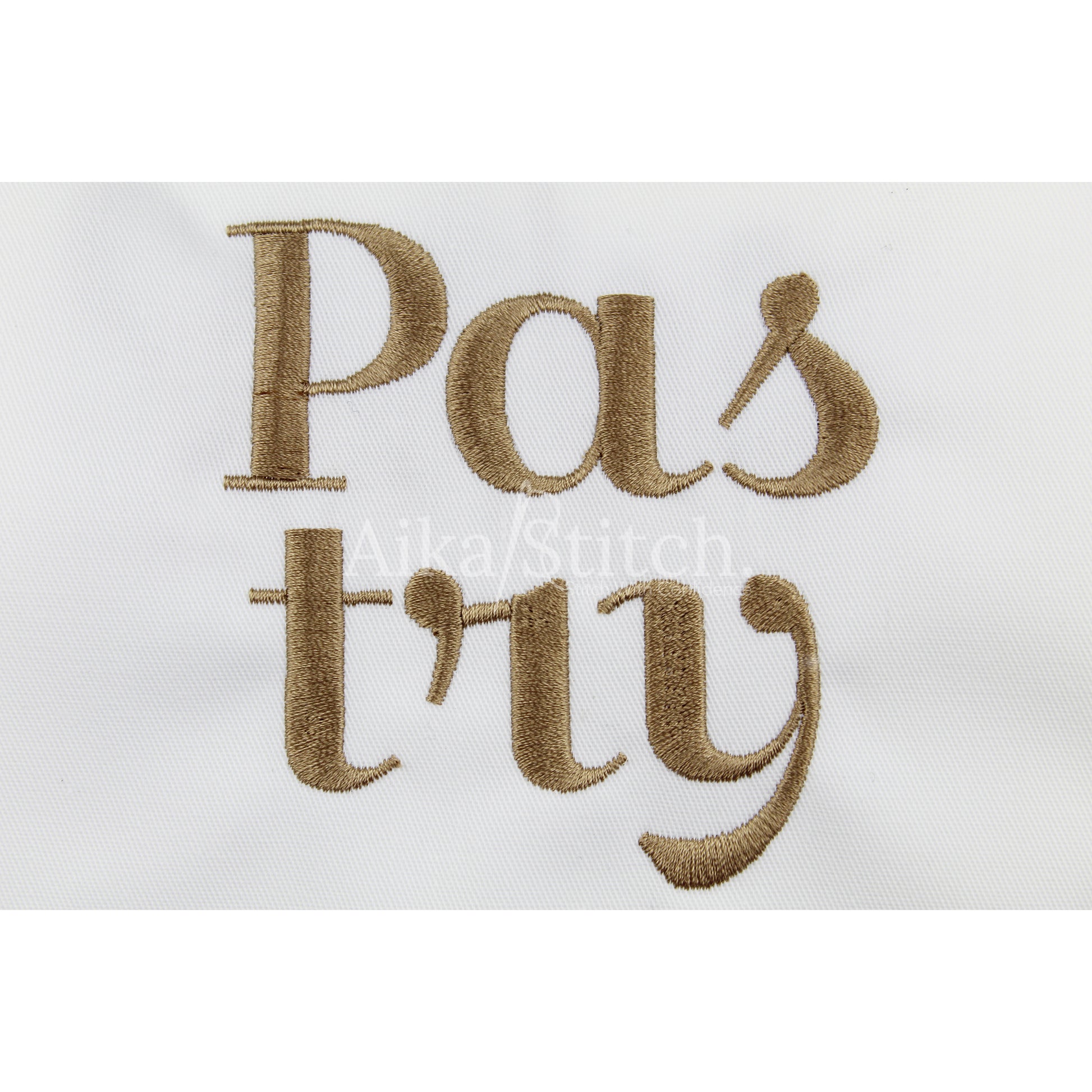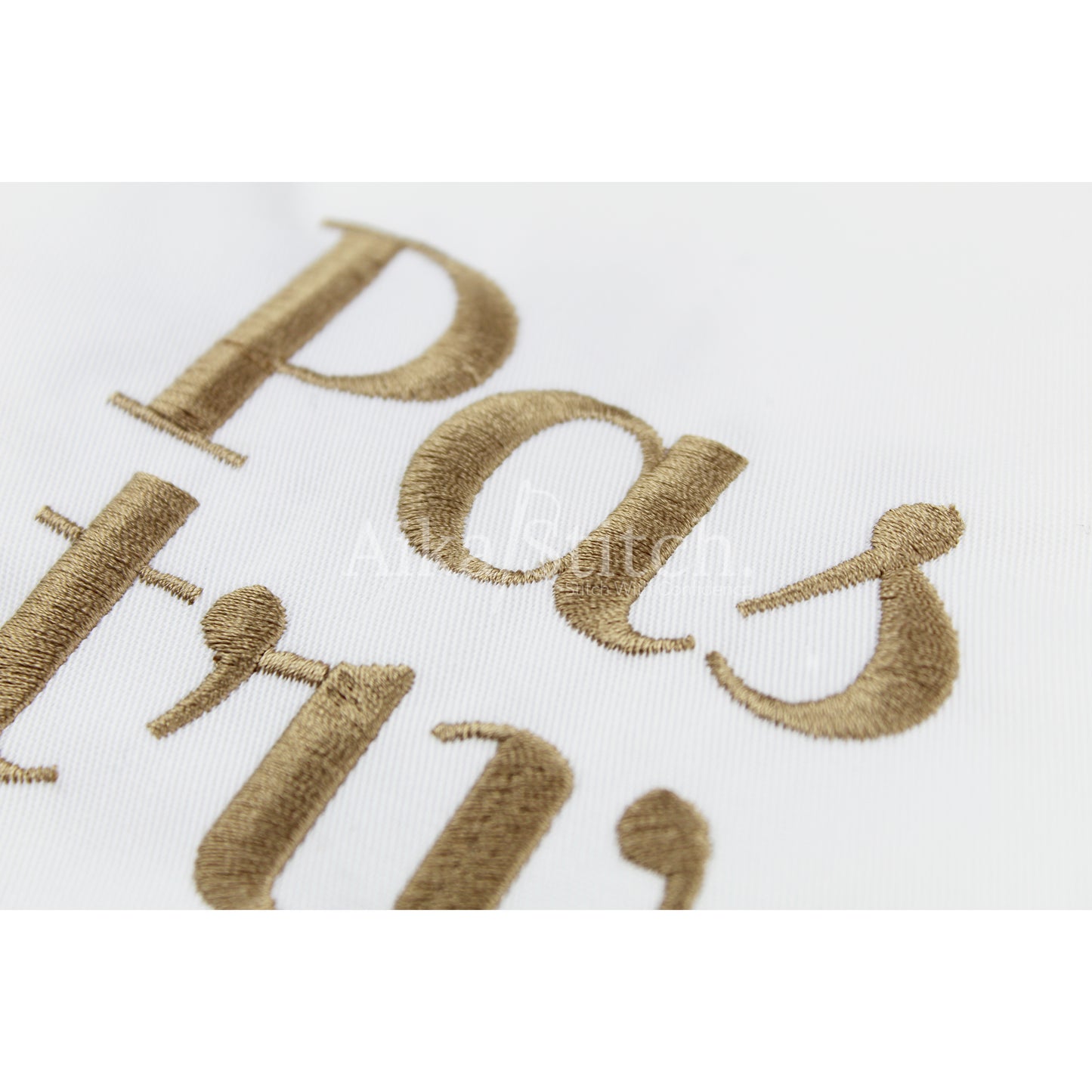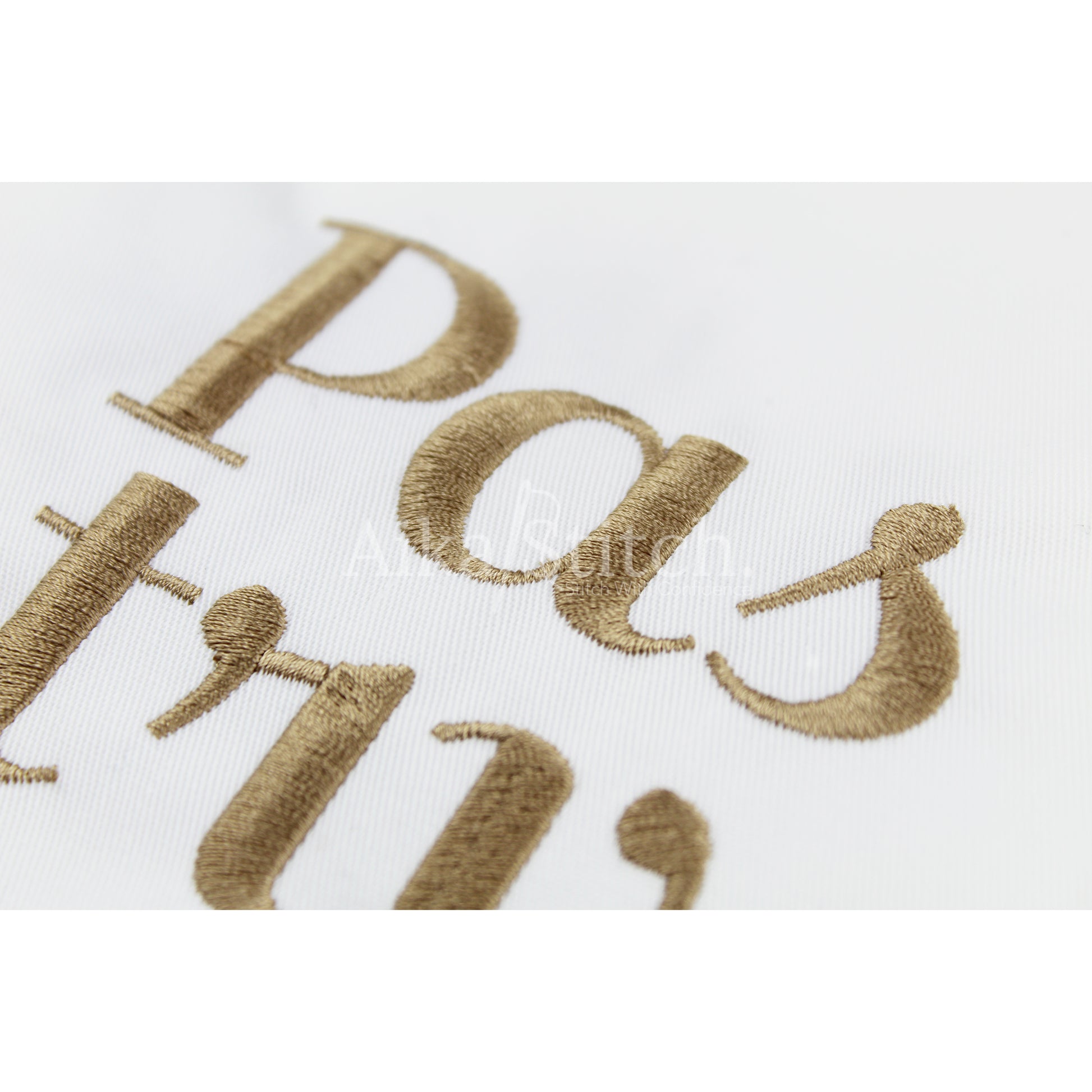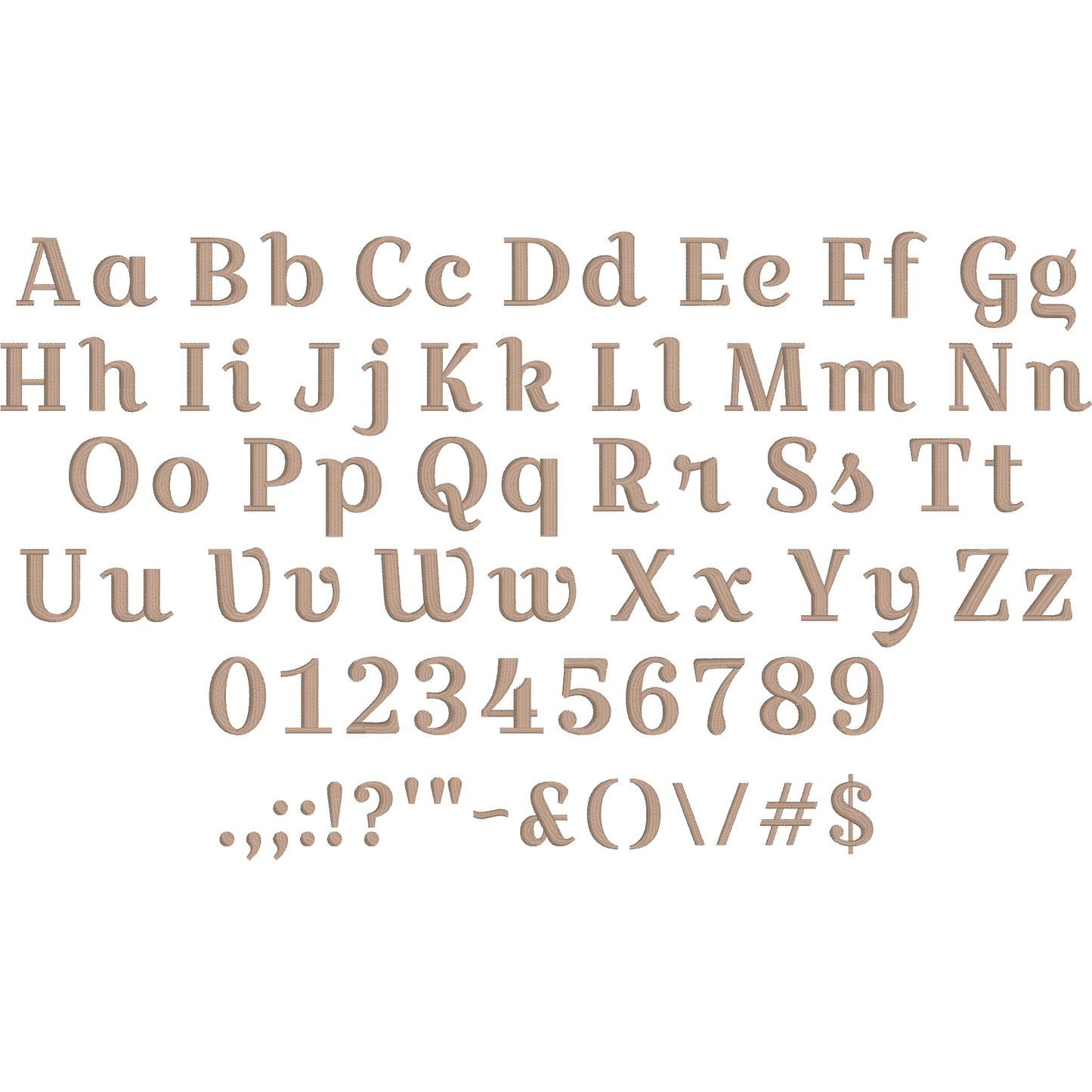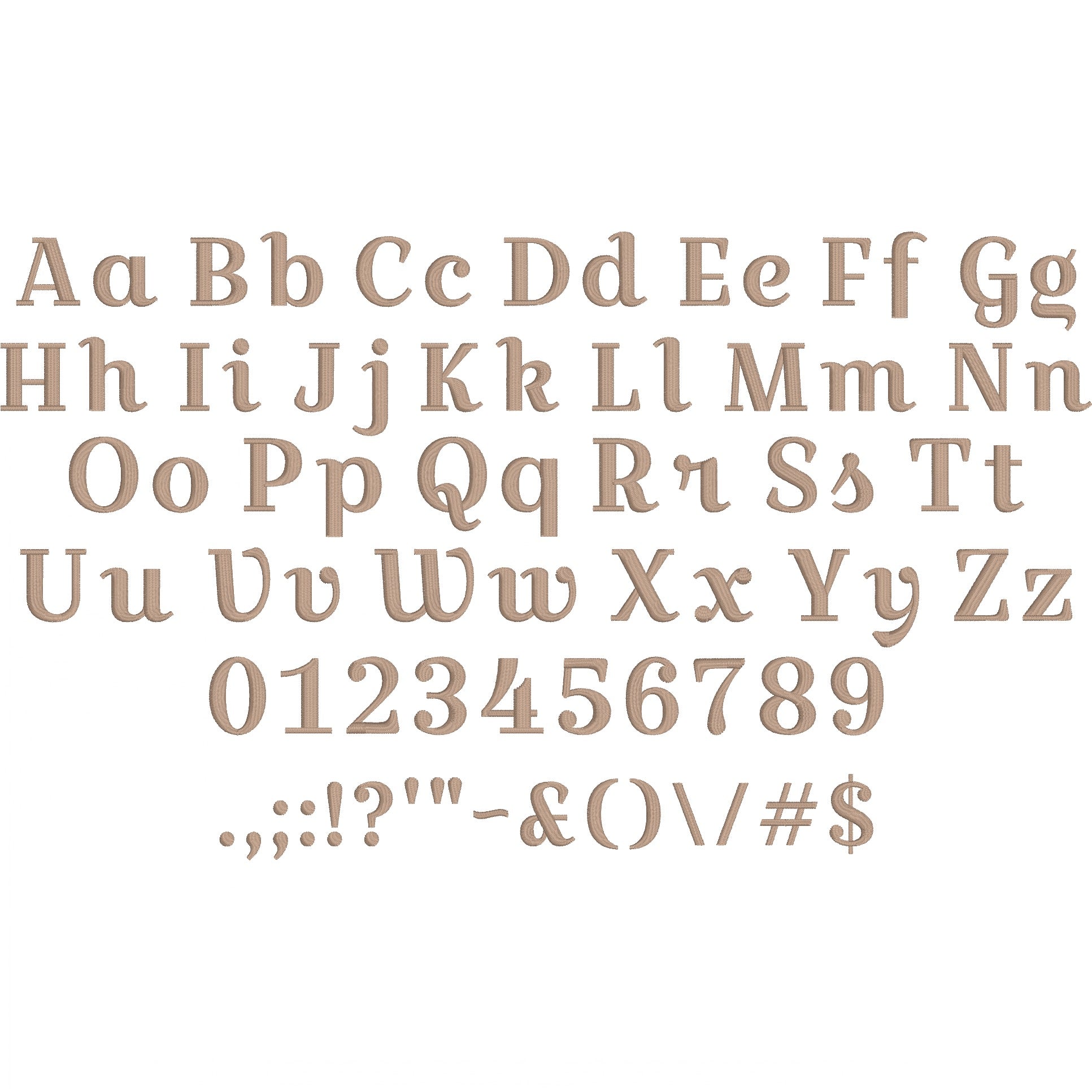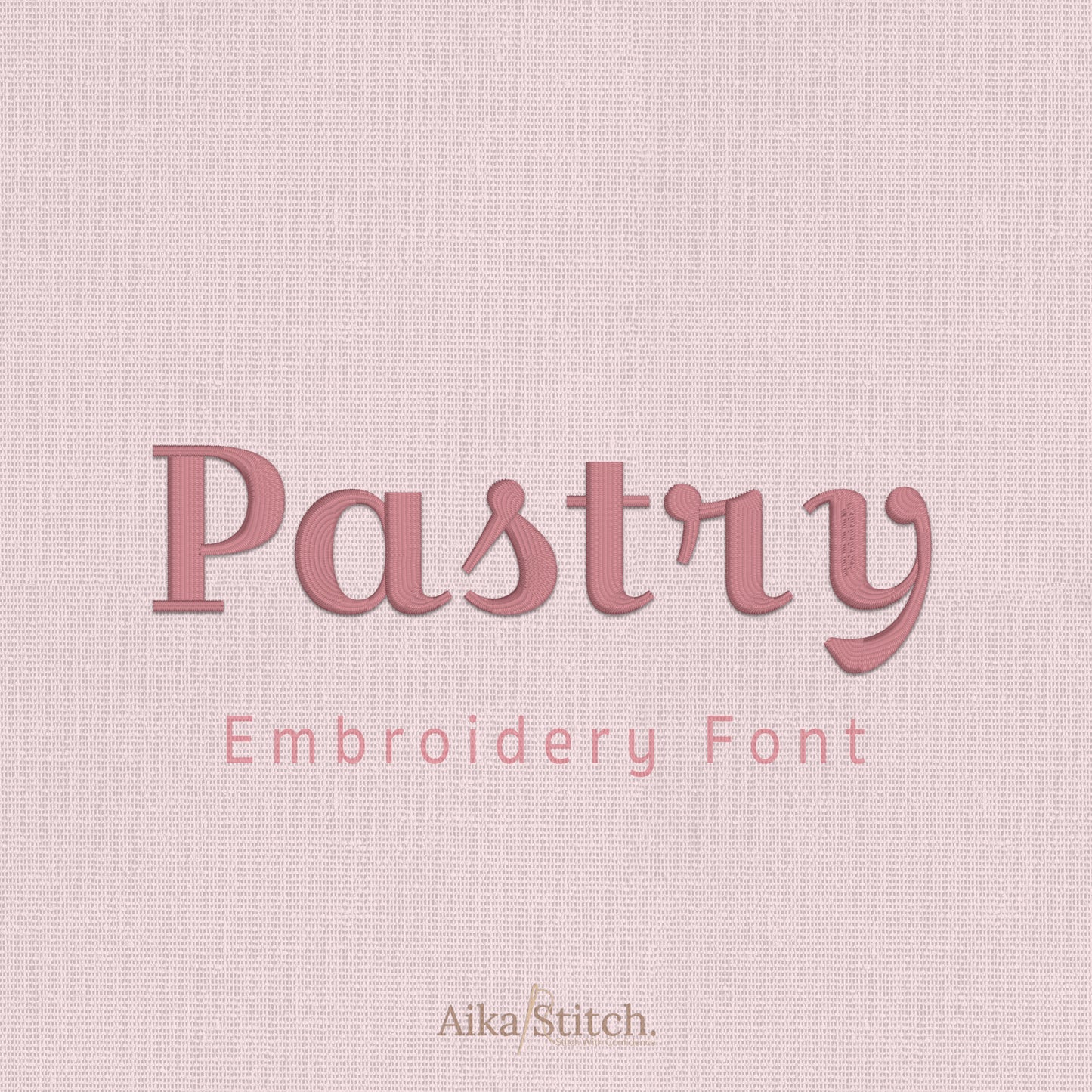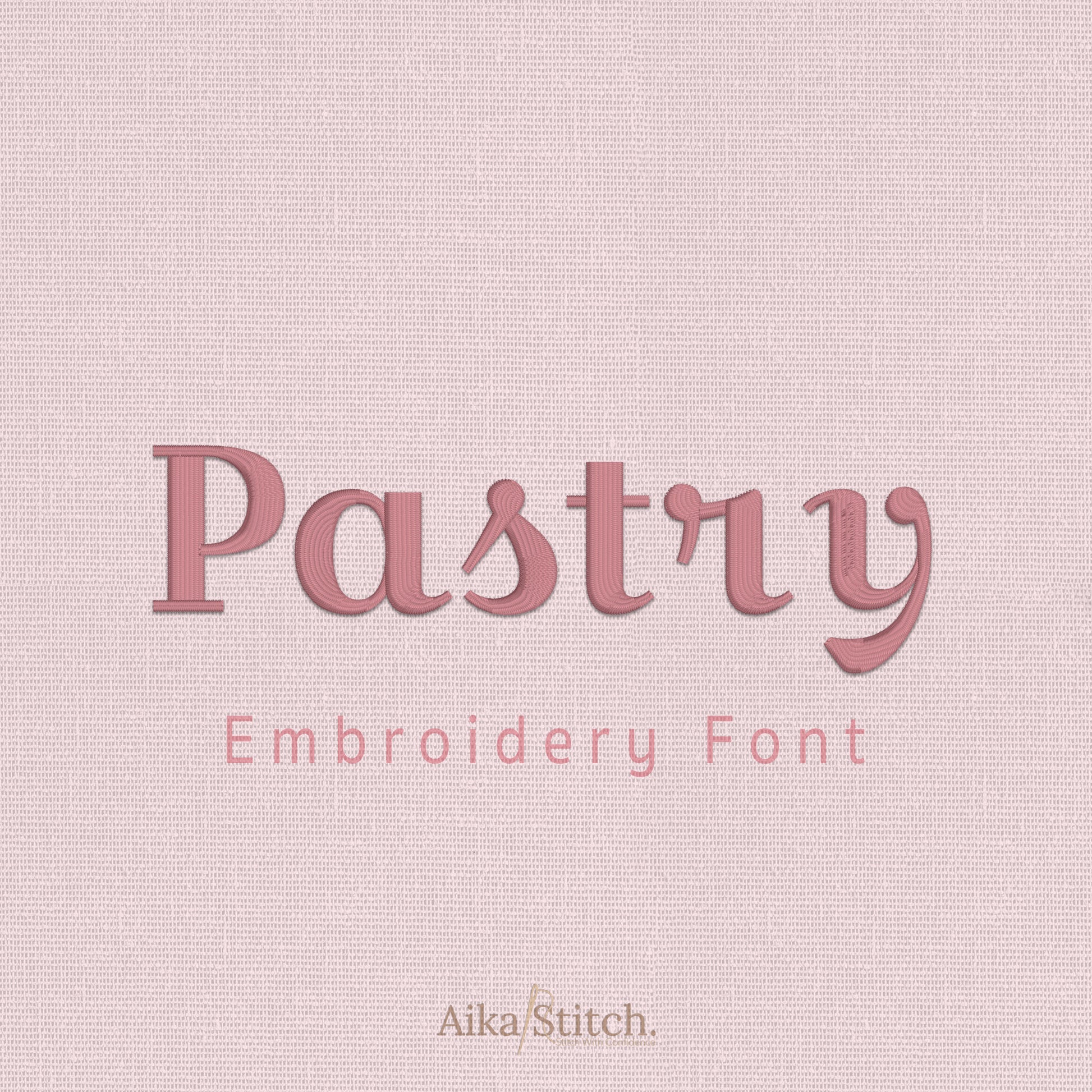
Pastry Script Cursive Embroidery Font
Pastry is a Script Cursive machine embroidery font featuring beautiful satin stitch lettering. Perfect for shirts, towels, hats, baby gifts, monograms, and small business embroidery projects.